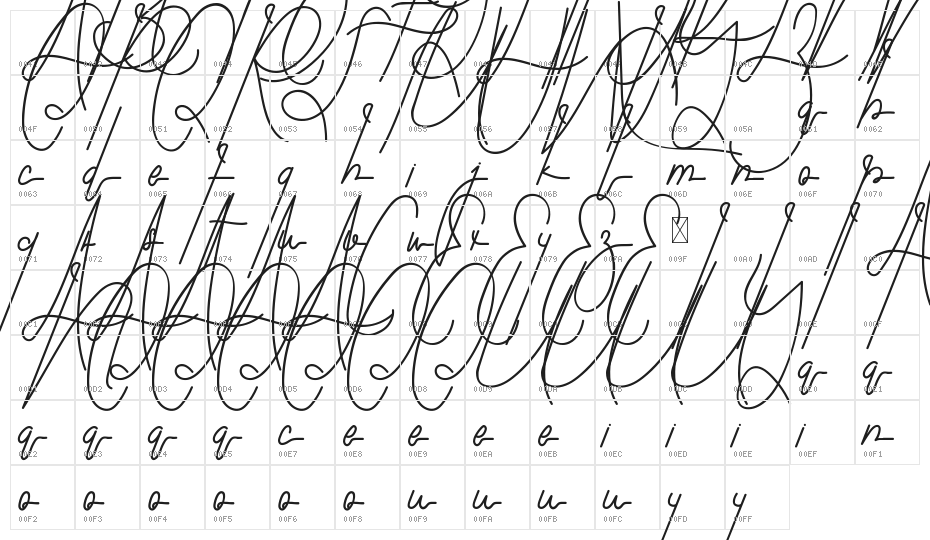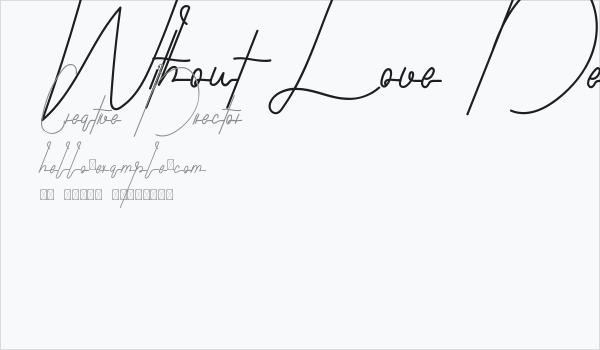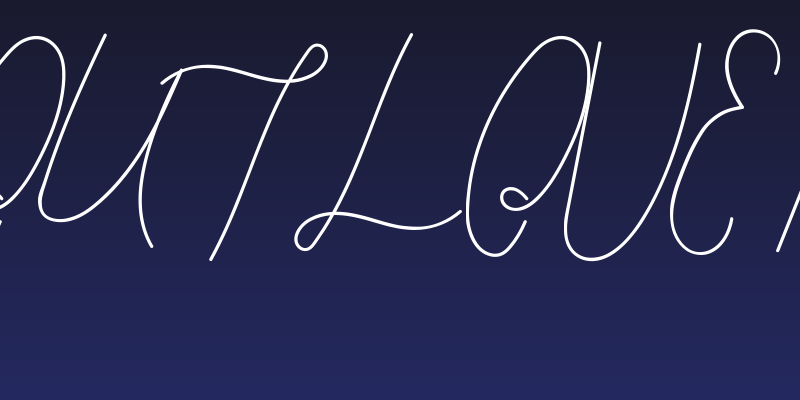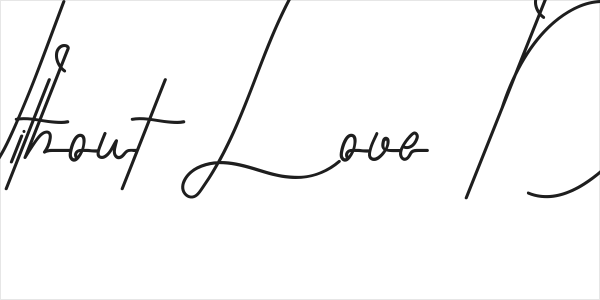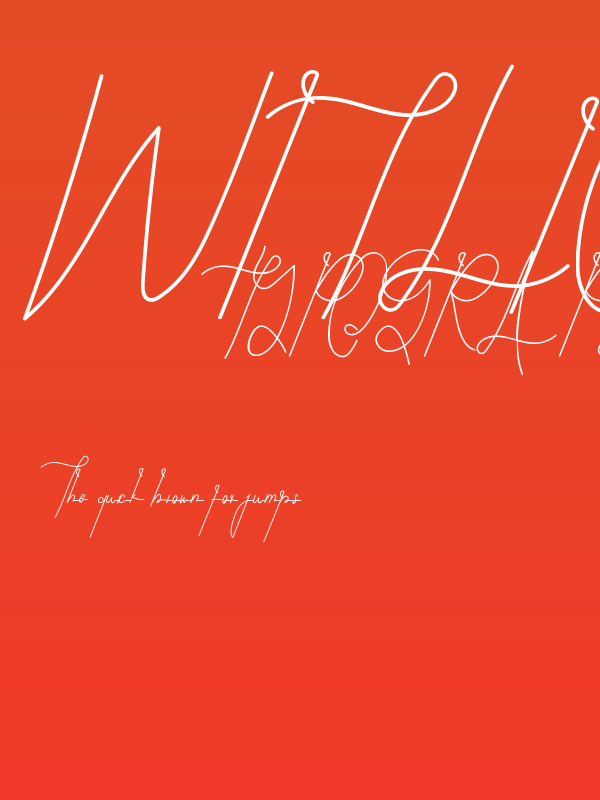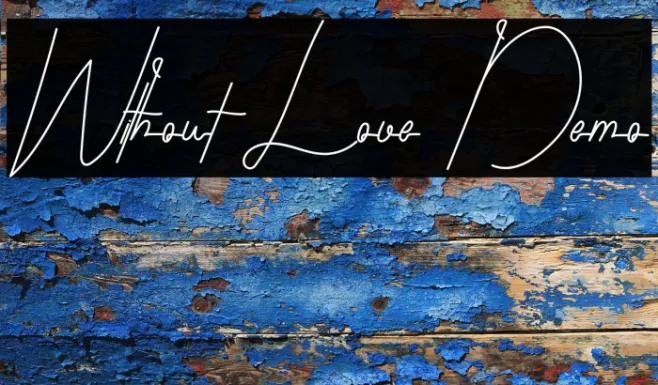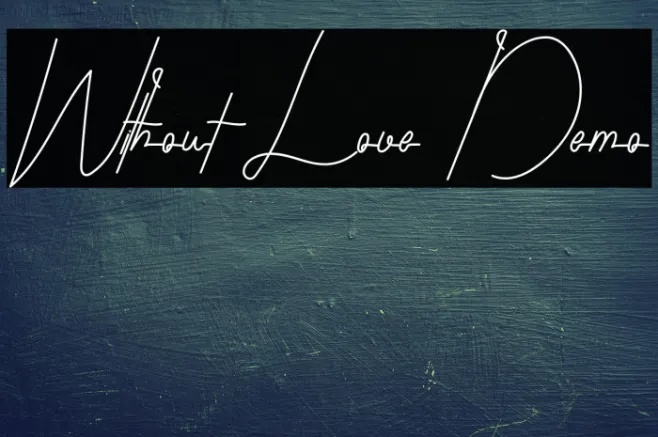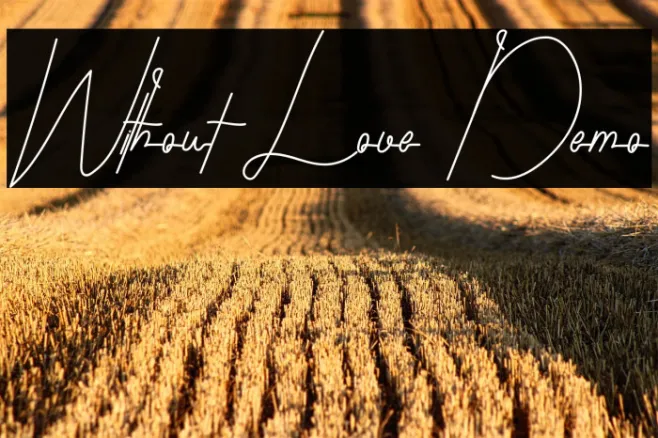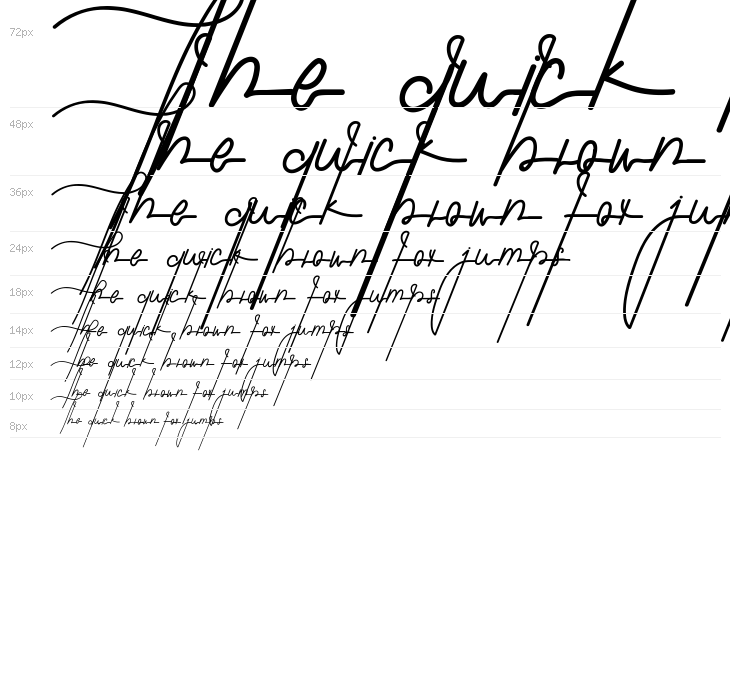
Without Love Demo Font
Without Love Demo Description
This font features a unique and elegant script style with a delicate, flowing appearance. The uppercase letters are characterized by their tall, slender forms and subtle loops at the ends of strokes, giving them a whimsical and airy feel. The lowercase letters maintain a consistent connection, enhancing the fluidity and continuity of the script. The numerals and special characters are designed to complement the overall aesthetic, with similar loops and curves that add to the cohesive look. This font's thin strokes and graceful curves make it ideal for projects that require a touch of sophistication and charm.